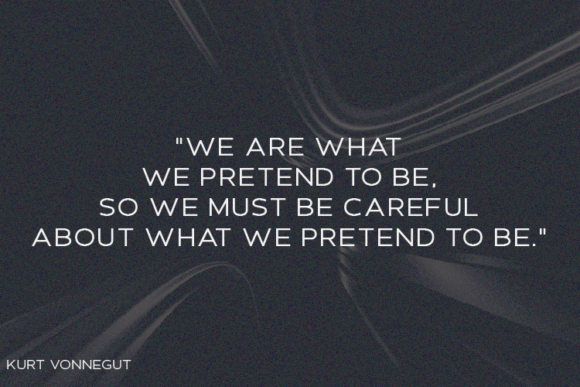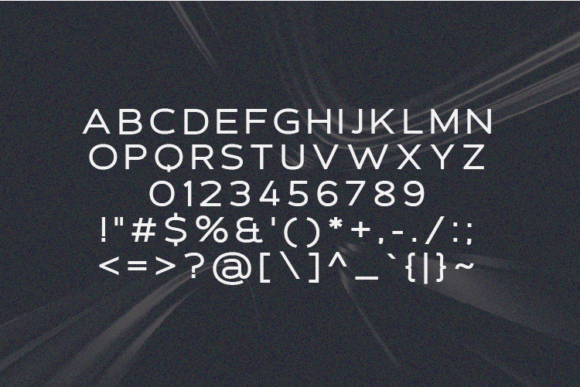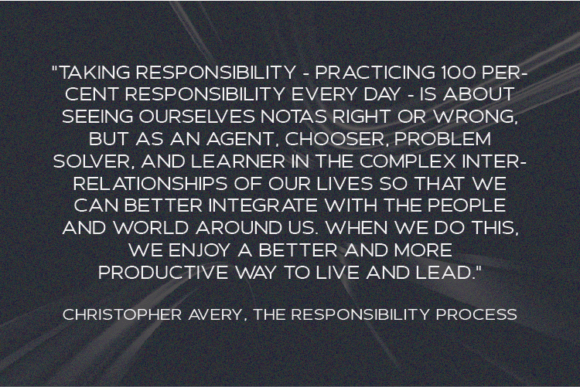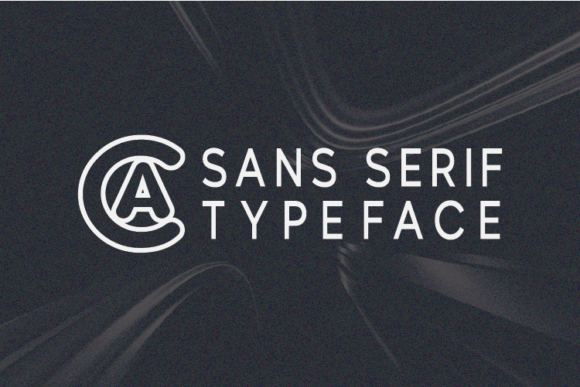
Introducing Essencial Font: Elevate Your Designs with Modern Elegance
In the world of typography, a font can make or break a design. It’s the foundation upon which creativity is built, and the right choice can elevate a project from ordinary to extraordinary. For designers and crafters seeking a modern, classy sans serif typeface, look no further than Essencial Font. This versatile and stylish font is poised to become your go-to choice for a wide range of projects, from logos and weddings to invitations, quotes, advertisements, and beyond.
What is Essencial Font?
Essencial Font is a thoughtfully crafted sans serif typeface that exudes modernity and sophistication. Its clean lines, precise curves, and balanced proportions make it an ideal choice for designers who value clarity and elegance. The font includes a comprehensive set of characters, featuring upper case letters, numbers 0-9, and a range of punctuation and symbols. This extensive character set ensures that Essencial Font can be used in a variety of contexts, from formal documents to creative projects.
Key Features of Essencial Font
- Modern Sans Serif Design: Essencial Font boasts a sleek, contemporary design that will add a touch of sophistication to any project.
- Upper Case Characters: The font includes a full set of upper case letters, perfect for titles, headings, and emphasis.
- Numbers and Punctuation: With numbers 0-9 and a range of punctuation and symbols, Essencial Font has everything you need to create professional-looking text.
- Versatility: Whether you’re designing a logo, invitation, or advertisement, Essencial Font’s versatility ensures it will fit seamlessly into your project.
Essencial Font’s adaptability makes it an excellent choice for numerous applications. Here are just a few examples of how you can use this fantastic font:
- Logos: Create a lasting impression with a modern, classy logo that stands out from the crowd.
- Weddings and Invitations: Add a touch of elegance to your wedding invitations, save-the-dates, and other stationery.
- Quotes and Posters: Make your quotes and posters more impactful with a font that’s both stylish and easy to read.
- Advertisements: Elevate your ads with a professional, eye-catching font that grabs attention.
- Print and Magazines: Use Essencial Font in your print projects, such as magazines, brochures, and flyers, for a clean and modern look.
Why Choose Essencial Font?
With so many fonts available, why choose Essencial Font? Here are a few compelling reasons:
- Unique and Memorable: Essencial Font’s modern design ensures your project will stand out and be remembered.
- Ease of Use: The font’s clean lines and simple shapes make it easy to read, even at smaller sizes.
- Professional Look: Achieve a professional, polished look without sacrificing style or creativity.
Essencial Font is a game-changer for designers and crafters seeking a modern, classy sans serif typeface. Its versatility, elegance, and comprehensive character set make it an ideal choice for a wide range of projects. Whether you’re creating a logo, invitation, advertisement, or print project, Essencial Font is sure to elevate your design and leave a lasting impression. So why wait? Discover the power of Essencial Font and take your designs to the next level.